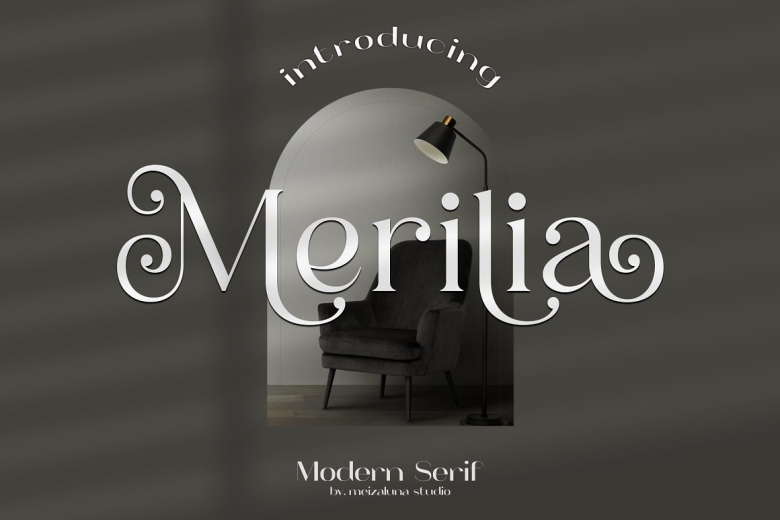
Merilia Font
Merilia is modern serif font which includes a large range of punctuation glyphs, numerals, and multilingual support. A full set of stylistic alternates for lowercase characters are also available.
Perfect for branding projects, Logo design, Clothing Branding, product packaging, magazine headers, or simply as a stylish text overlay to any background image.
Merilia Serif Font